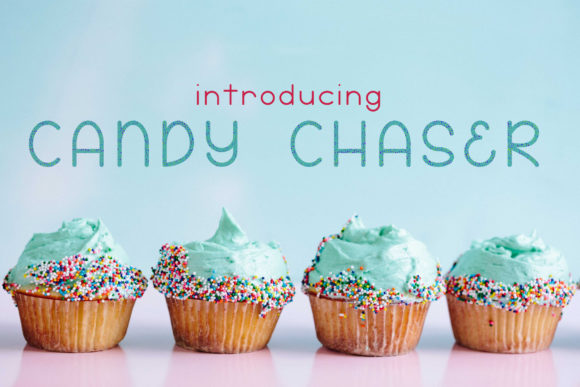
Step into the world of sweet typography with Candy Chaser, a captivating handwritten font family destined to make your designs pop. Inspired by the playful nostalgia of classic amusement parks, Candy Chaser's unique charm lies in its effortless flow and whimsical curves, perfect for adding a touch of whimsy and fun to your creative expressions.
Crafted with precision and a keen eye for detail, Candy Chaser is a petite delight, perfectly suited for petite display spaces, adding a touch of magic to logos, branding, posters, social media graphics, and even website headers. Its compact design ensures maximum impact even in constrained spaces, making it an ideal choice for designers seeking a font that packs a punch.
Unlike other script fonts that can be overwhelming, Candy Chaser's inherent simplicity and clean lines make it incredibly versatile. It effortlessly blends with a wide spectrum of design aesthetics, from classic to contemporary, vintage to modern, and everything in between. Whether you're creating a playful logo for a children's brand or a sophisticated poster for a music festival, Candy Chaser seamlessly adapts to your creative vision.
Unleash your imagination and let Candy Chaser take your designs to new heights. Its user-friendly nature makes it a joy to work with, ensuring a smooth and satisfying design experience. Experience the magic of Candy Chaser today and elevate your creative projects to new heights.